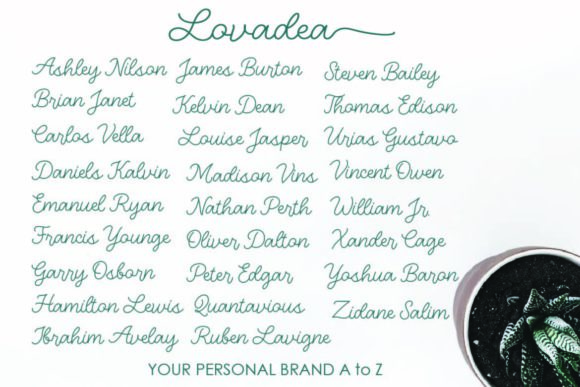
Lovadea Font
About Lovadea Font
Lovadea is a gorgeous monoline script, full of personality and curves. It features a natural flow that makes it perfect for any project that requires a handwritten feel. Get inspired by its authentic feel and use it to create gorgeous wedding invitations, beautiful stationary art, eye-catching social media posts, and cute greeting cards.